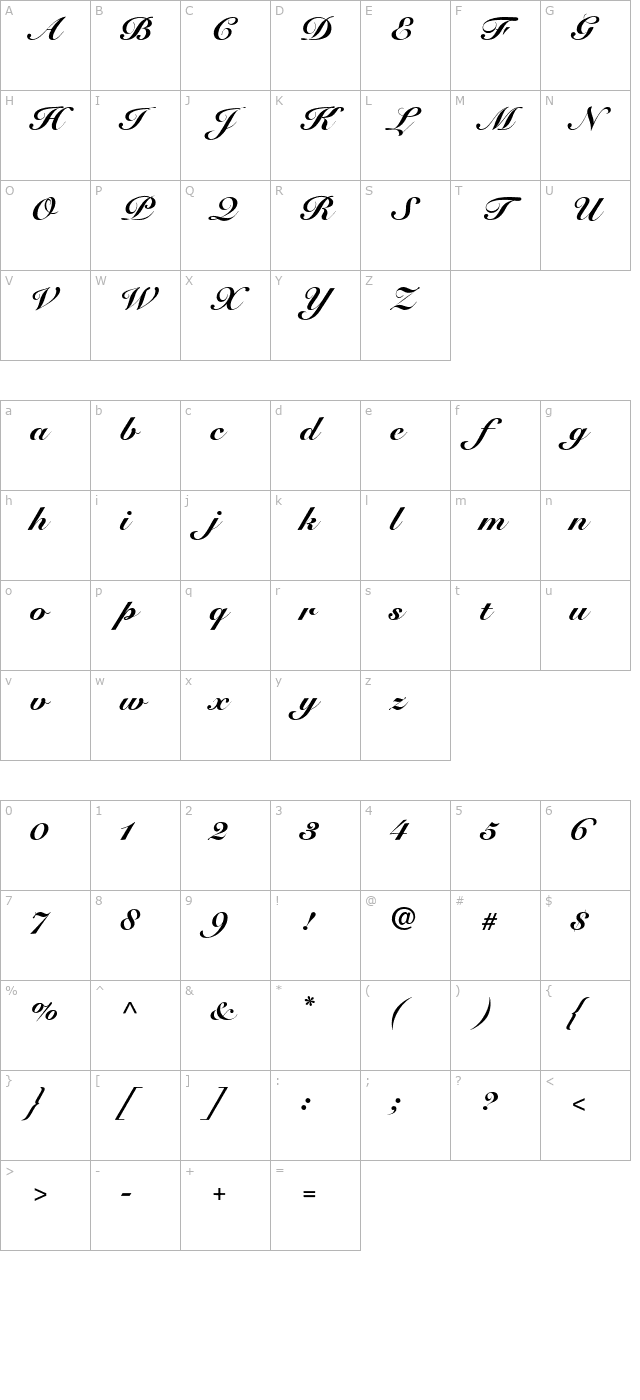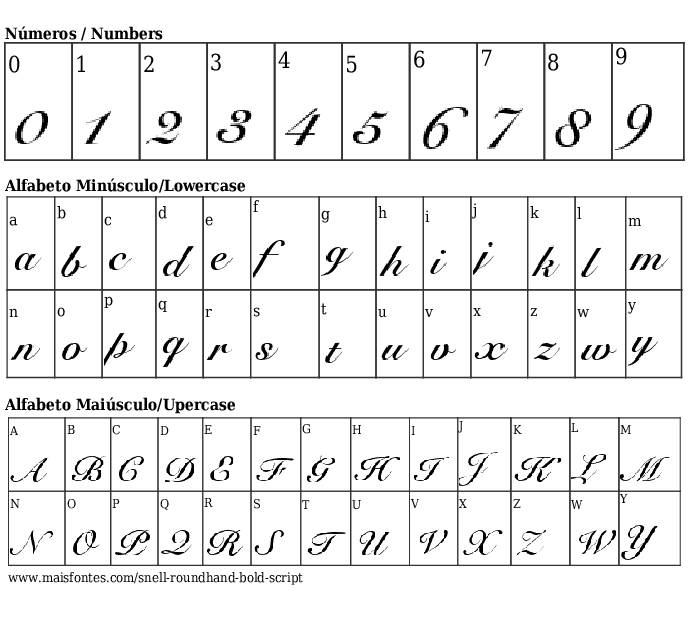
This font design has a unique and fancy look.
Snell roundhand font generator. The font family is snellroundhand script.the subfamily is italic. This font is a free software for personal. This font family was published in 1966 through linotype.
This font family has been designed based on the roundhand script of charles snell. You can use the snell roundhand lt std script to create interesting designs, covers, shop and store. Notification of license agreementyou have obtained this font software either directly from linotype gmbh or together with.
Snell roundhand was designed by matthew carter, charles snell and published by linotype. Snell roundhand font is a handwritten script typeface designed by matthew carter in 1966 and published through linotype. On this page you can download the font snell roundhand black version 1.00 january 18, 2019, initial release, which belongs to the family snell roundhand (subfamily black).
This typeface was based on the roundhand script of charles snell, he was. This connecting script was based on the roundhand script of charles snell, a writing master from the 1600s. Snell roundhand contains 3 styles and family package options.
Please, talk with the author for commercial use or. Late in the seventeenth century, the english writing master, charles snell, decried all flourishes in the puritan trad. Snell roundhand was created by matthew carter for linotype in 1966.
Snell roundhand font download free. If you are searching for a handwritten script typeface then you should end your search here because here we are providing you the snell roundhand font that was designed by matthew carter in 1966 and published through linotype. Carter later expanded on the design by adding two additional weights.
Roundhand free by intellecta design. Carter later expanded on the design by adding two additional weights. Use the text generator tool below to preview round hand font, and create appealing text graphics with different colors and hundreds of text effects.
Please, talk with the author for commercial use or for any support. This connecting script was based on the roundhand script of charles snell, a writ. Regular), 308 characters in total.
The font family is snell roundhand lt std. Family packages tech specs licensing. Snell roundhand script is the perfect font for all your fun designs.
Snell roundhand script is free for personal use only. Snell roundhand black script is the perfect font for all your fun designs. The font family is snellroundhand script.the subfamily is bold italic.
It is a classy font used as a fonts generator and inside css. Snell roundhand lt std black script is free for personal use only. The script font family was developed by matthew carter in 1965, based on the roundhand script of charles snell, a writing master from the 1600s.
We are presenting you a new handwritten typeface family that is known as snell roundhand font. Snell roundhand regular 1.1.1 font (font family name: It can be used to create books cover, titles, invitation cards, brochures, banners, etc.
Designers used this font in their design work to enhance the beauty of their work. Snell roundhand font is a handwritten script typeface. The cover art features a quoted song title, using snell roundhand black, set on a curve with a shadow effect.
Intellecta design makes research and development of fonts with historical and artistical relevant forms. About the font snell roundhand black script. The designer of this font is mattew carter.
You can generate this font online without paying any charges with the help of the snell roundhand generator. The snell roundhand font family was developed by matthew carter in 1965. Home » handwritten » snell roundhand font free download max weber · leave a comment here we are going to introduce you to the handwritten script typeface which is known as snell roundhand font which is the creation of matthew carter in.
The font snell roundhand lt std black script is also perfect for branding projects. About the font snell roundhand lt std script. Please, talk with the author for commercial use or for any support.